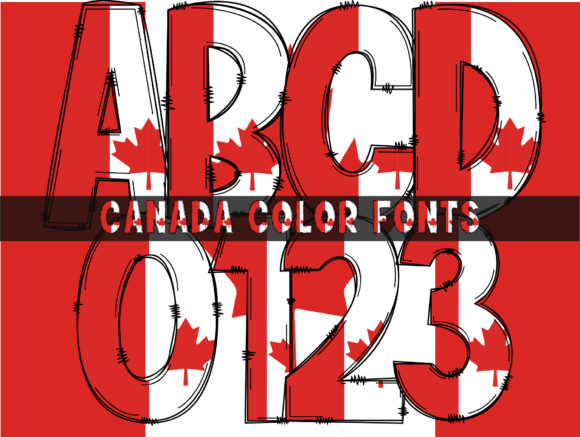
The Ultimate Guide to Canada Font: A Designer’s Dream Come True
I’ll never forget the moment I stumbled upon the Canada Font while working on a project that required a bold and edgy touch. I had been searching for the perfect font for hours, trying out different styles and weights, but nothing seemed quite right. That’s when I came across Canada Font, and it was love at first sight! 😍
This bold and incredibly cool color font has been a game-changer for my designs, and I’m excited to share its awesomeness with you. Whether you’re a designer, crafter, or creative hobbyist, Canada Font is sure to inspire your next project.
Honest Review: The Good, the Bad, and the Quirky
What I Love About Canada Font ✨
- 💥 **Bold and eye-catching**: Canada Font makes a statement with its bold and vibrant colors.
- ✅ **Versatile**: This font can be used for various design ideas, from posters and flyers to social media graphics and more.
- 🌈 **Colorful**: The font comes in a range of colors, making it perfect for designs that require a pop of color.
- 👍 **Easy to read**: Despite its bold style, Canada Font is surprisingly easy to read, even in smaller sizes.
- ⚠️ **Limited use in formal designs**: Canada Font’s bold and playful style may not be suitable for formal or professional designs.
- 🤔 **May not work well in small sizes**: While the font is easy to read, it may lose some of its impact when used in very small sizes.
The Backstory Behind Canada Font
The story behind Canada Font is one of creativity and inspiration. According to its designer, the font was created as a tribute to the beauty and diversity of Canada. The designer wanted to capture the country’s vibrant spirit and bold personality in a font that would inspire designers and creatives alike.
Q: What is Canada Font? 🤔
A: Canada Font is a bold and colorful font that’s inspired by the beauty and diversity of Canada.